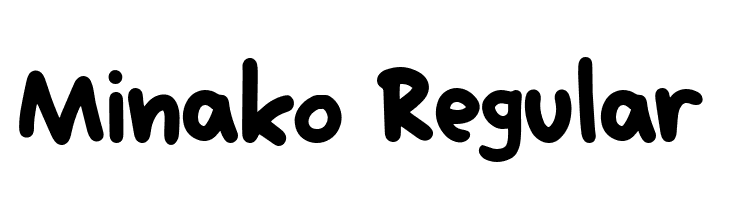
A cursive, handwritten font with elegant, flowing strokes.
A bold, expanded italic font with a futuristic and dynamic style.
A bold, gothic-inspired font with intricate blackletter details.
A bold, distressed font with a gritty, urban aesthetic.
A bold, distressed font with a vintage, rugged texture.
Bold, geometric font with a 3D shaded effect for impactful designs.
A playful, handwritten font with smooth, rounded edges and a friendly appearance.
A modern, italic sans-serif font with a clean and dynamic style.
An elegant, flowing script font with decorative flourishes.
A playful, bold font with rounded edges and consistent stroke width.
A bold, shadowed font with a distressed, horror-themed style.
A bold, high-contrast serif font with a strong, elegant presence.
A bold, angular, and condensed italic font with a modern, dynamic style.
A clean, modern sans-serif font with geometric shapes and uniform strokes.
A classic serif font with elegant, sharp serifs and medium contrast.
An ornate and decorative font with intricate patterns and embellishments.
A bold, modern typeface with thick strokes and clean lines, perfect for headlines.
A bold, brush-style font with an energetic, street-art vibe.
A hand-drawn, energetic font with tall, narrow characters and irregular strokes.
A bold, dynamic font with unique curves and artistic flair.
An ornate and decorative font with intricate design elements.
A modern, geometric font with clean lines and uniform stroke width.
A pixelated, blocky font with a retro digital aesthetic.
An elegant and whimsical script font with decorative swirls and flowing letters.
A modern, geometric typeface with a monospaced, technical look.
A playful, bone-inspired font with a quirky and whimsical design.